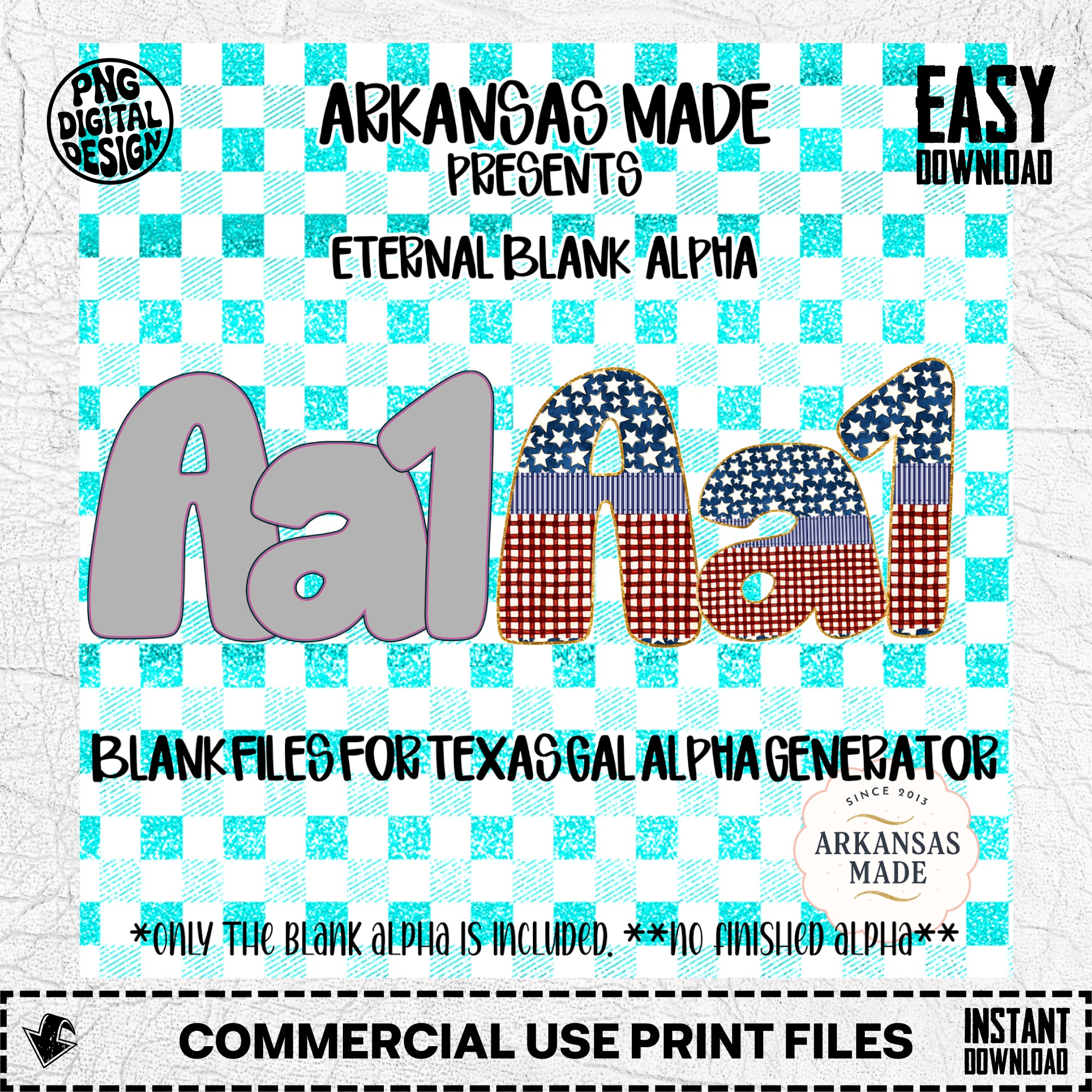
Blank Alpha PNG Set, Puffy Bubble Letters Digital Download, Customizable Sublimation Alphabet, DIY Craft Font, Commercial Use PNG Alpha Set
Elevate your designs with this Blank Alpha PNG Set, featuring puffy bubble letters perfect for sublimation and digital crafting. Instant download for commercial use! This versatile digital alphabet empowers DIY enthusiasts and small business owners to create stunning custom projects. Whether for patriotic themes, summer designs, or personalized gifts, these transparent letters provide endless creative possibilities. Perfect for crafting unique shirts, tumblers, or party decor for any occasion.